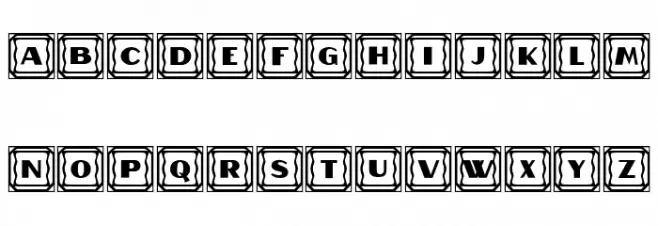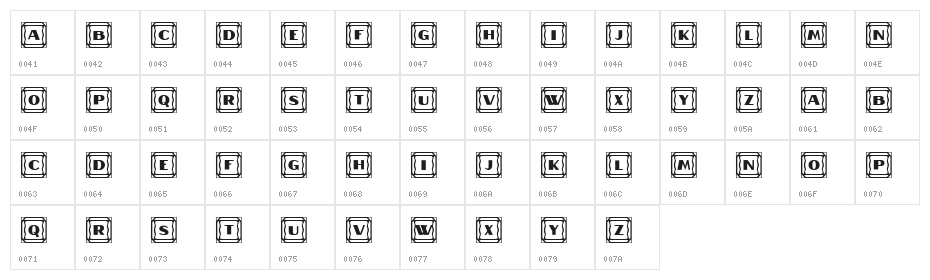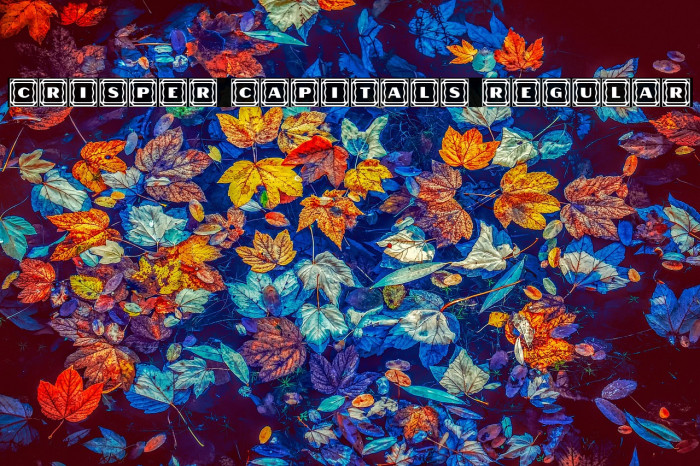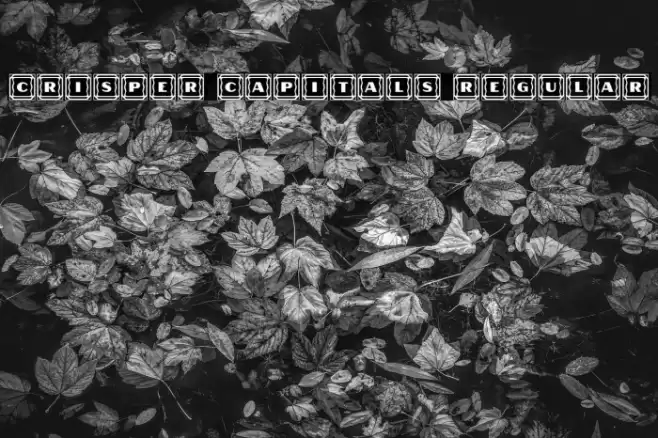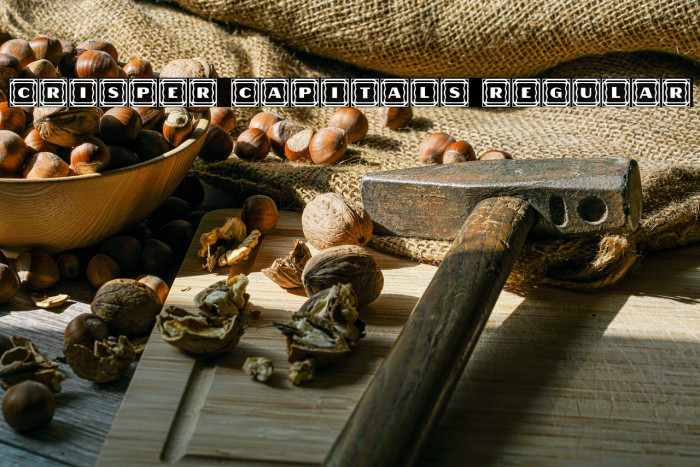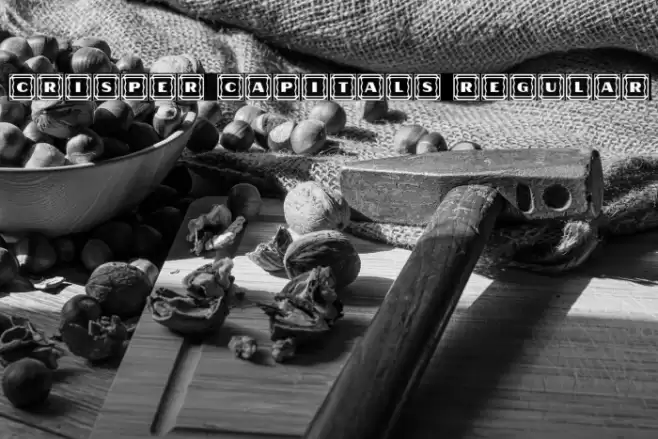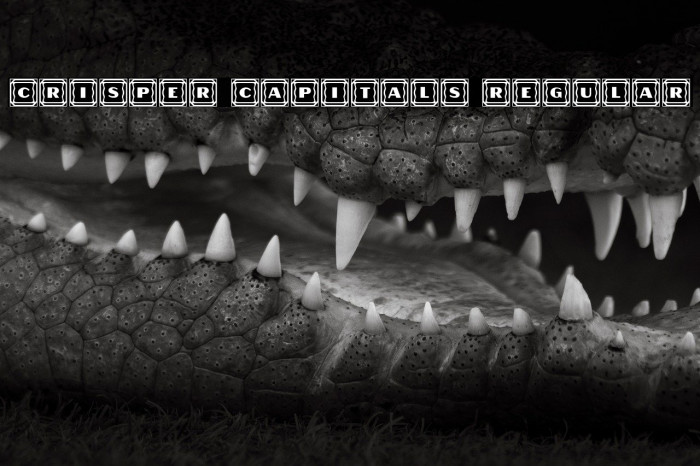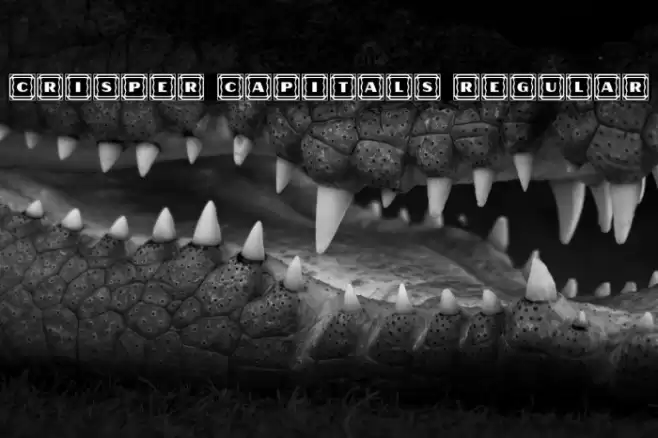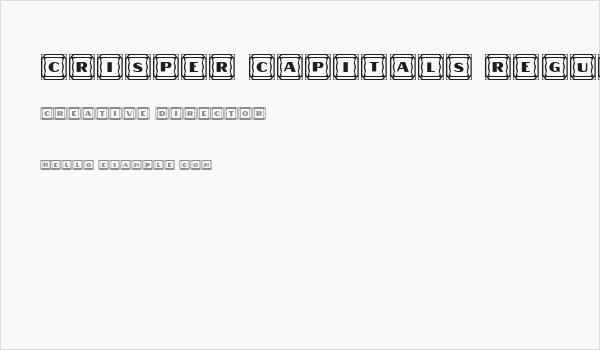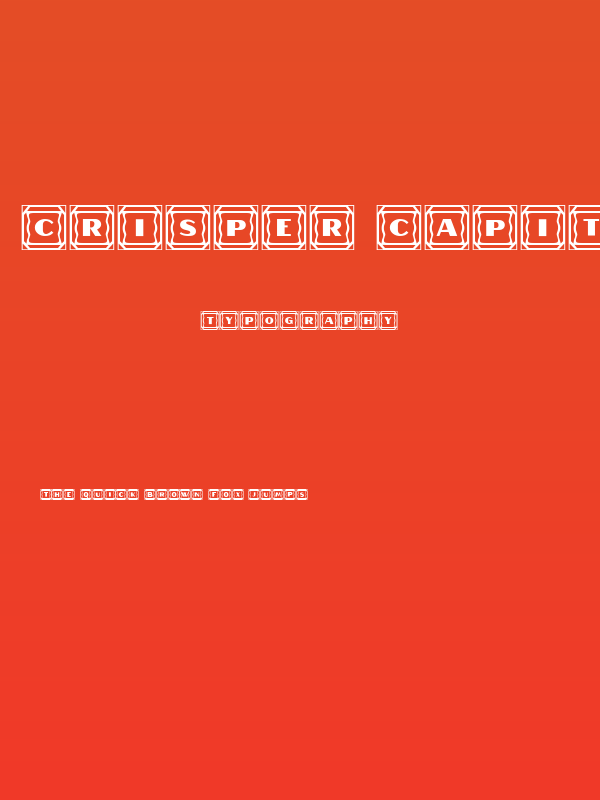
Crisper Capitals Regular Font
| おすすめプロジェクト | Ideal for vintage-themed posters, book covers, event invitations, and branding materials that require a classic and decorative touch. |